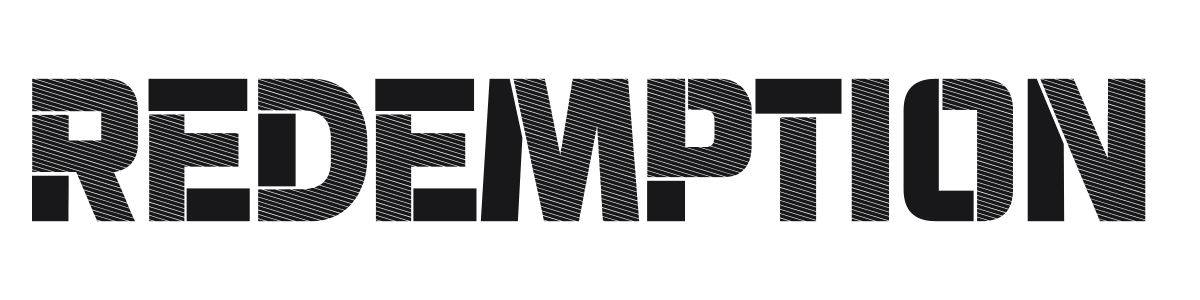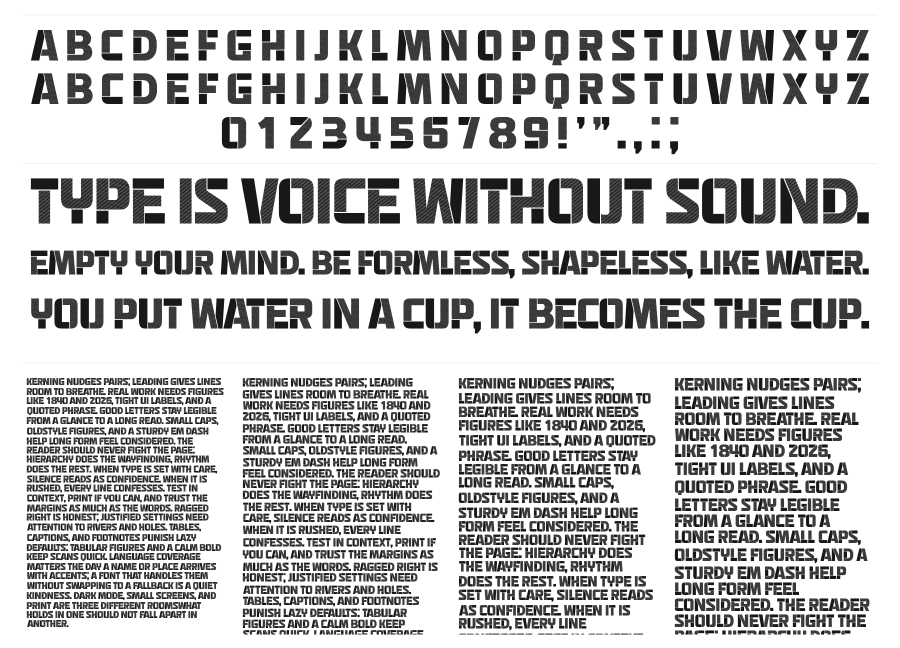
Redemption
Redemption is a heavy condensed stencil display font filled with dense horizontal striping that gives every character a shredded, industrial texture. The combination of bold blocky forms and the line-fill effect creates a look that sits somewhere between military stencil and underground music aesthetic. It works best large, where the texture reads clearly and the weight commands attention.